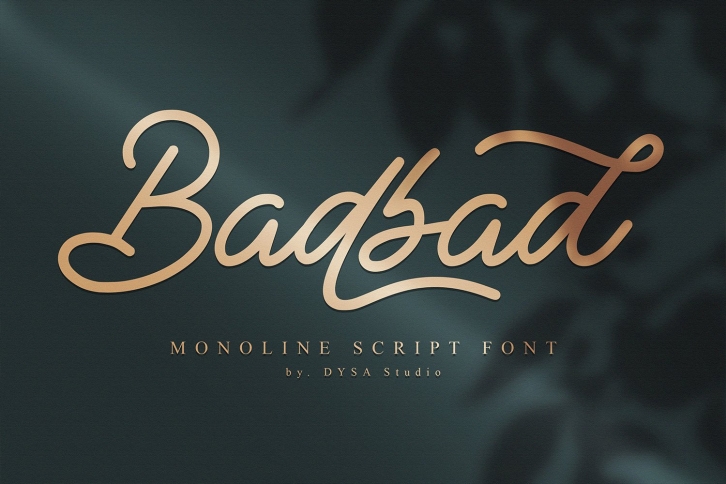
Badbad is a gorgeous font that was realeased on December 10, 2020. The font can be used in many style contexts and design environments. Perfect for invitations, magazines, websites, logos, and more! It was designed by DYSA Studio and the file size is 8.73 MB. Thanks for checking out this font!